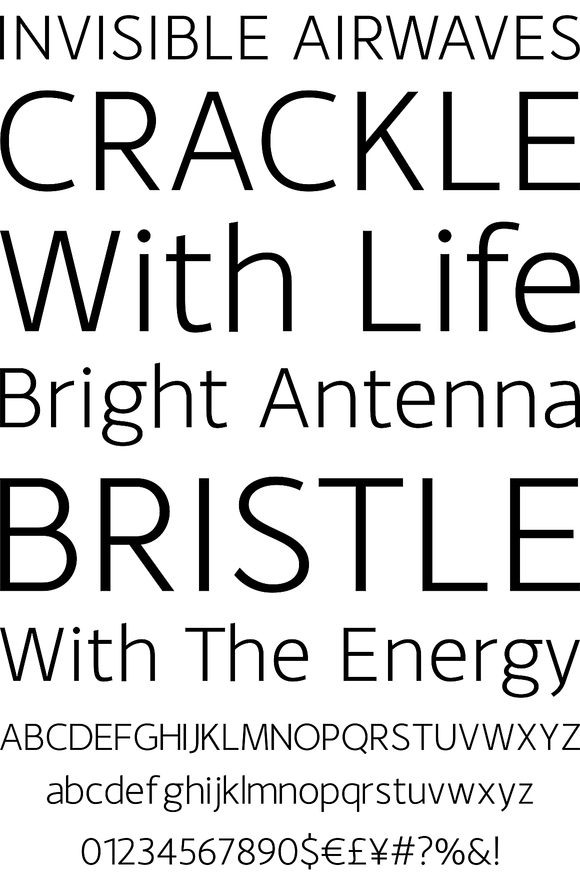
Foundry: The Northern Block
A sans-serif typeface with clean and simple proportions. The design pays special attention towards balance and purity of form, creating a functional yet elegant typeface suitable for a wide variety of modern applications. Details include 9 weights, an extended European character set, manually edited kerning and Euro symbol.